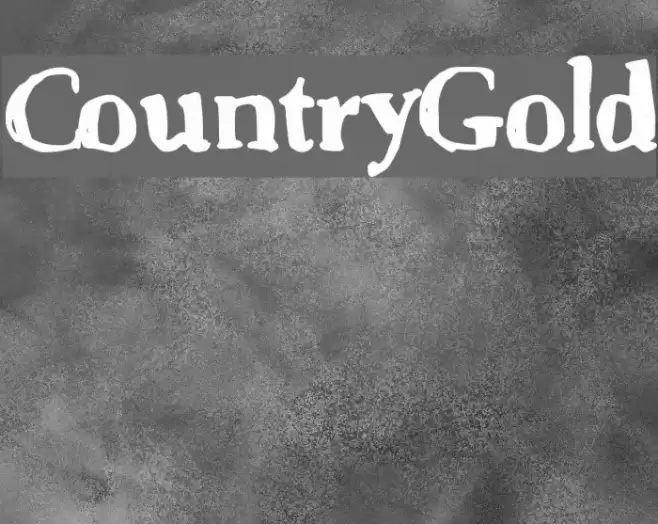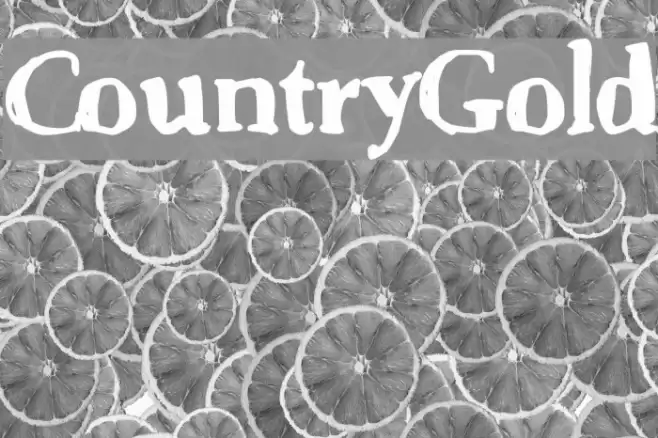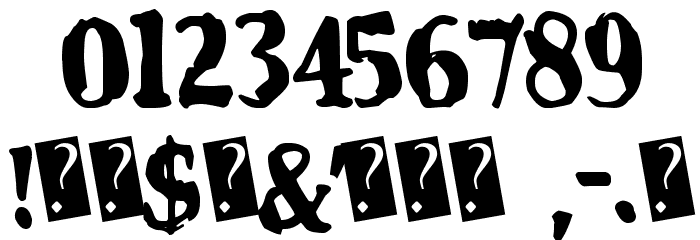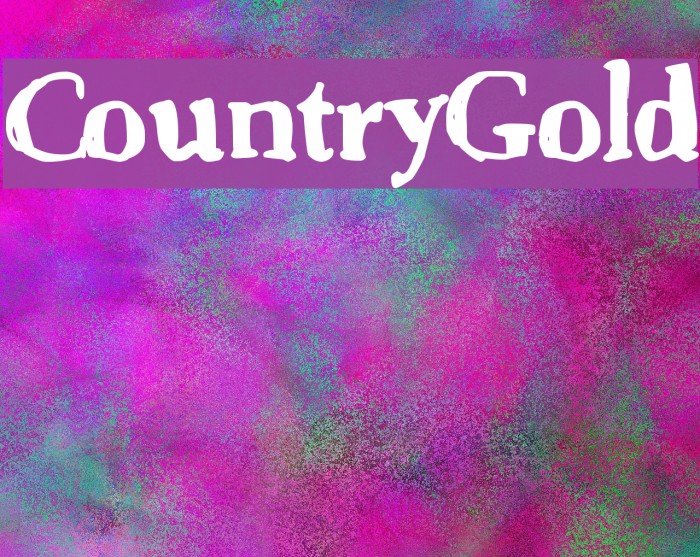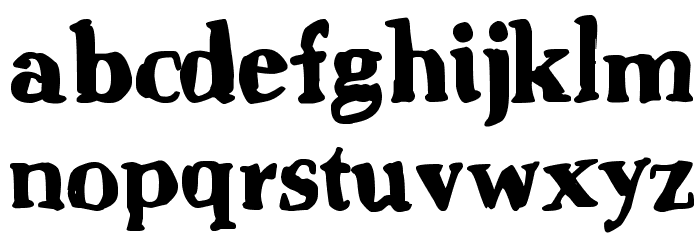
CountryGold Font
CountryGold Description
This font features a bold and rustic style, reminiscent of traditional Western or country themes. The characters are thick and uneven, giving a hand-crafted appearance that adds a sense of authenticity and charm. The uppercase letters are strong and commanding, while the lowercase letters maintain a consistent style with slightly exaggerated serifs. Numbers and special characters follow the same bold and rugged design, making them highly legible and visually striking. This font is ideal for projects that require a touch of vintage flair or a connection to rural aesthetics.
A bold, rustic font with a hand-crafted, Western-inspired style from Distorted Eroded fonts.
- Proposed Projects: Ideal for branding, posters, signage, and any project needing a vintage or rustic touch.
- Overall Style: Vintage